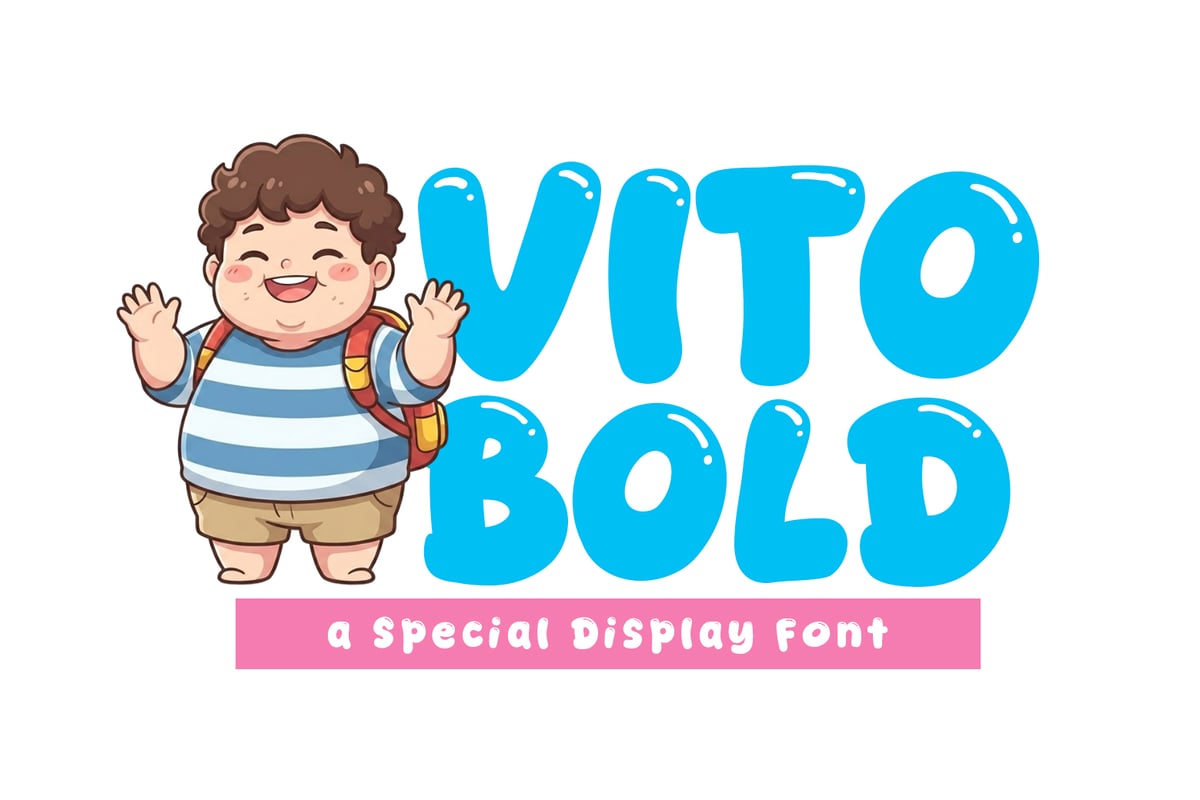
Vito Bold - Cozy & Display Font
Bring pure childlike wonder to your designs with Vito Bold's irresistibly cozy and playful display font!
This contemporary handwritten typeface bursts with vibrant personality and spirited energy that instantly captures attention. Every character radiates charm, making it the perfect choice for creating memorable designs that stand out from the crowd.
Vito Bold's bold presence and delightful character make it incredibly versatile for multiple design applications:
- Eye-catching posters and promotional materials
- Distinctive logos and branding
- Magazine layouts and editorial design
- Book covers that demand attention
- Banners and signage